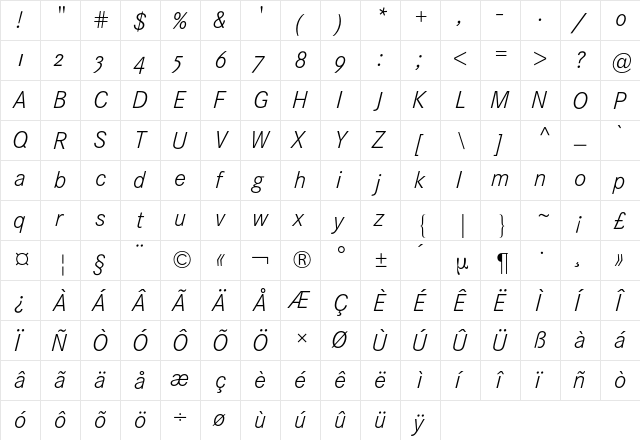
Corporate S Expert BQ Regular
Design Context for Corporate S Expert BQ Typeface
Corporate S Expert BQ takes a measured approach to typography — its balanced proportions and neutral character make it a reliable workhorse for both digital and print work.